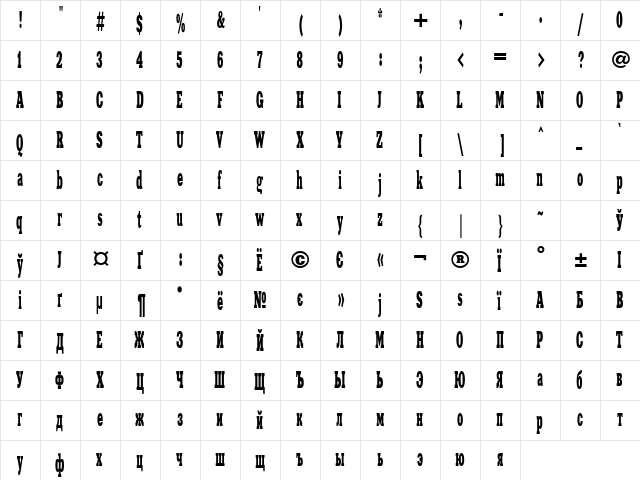
XeniaWesternC Regular Font Preview
XeniaWesternC Regular
Design Context for XeniaWesternC Typeface
XeniaWesternC taps into classic Western woodtype traditions — bold, characterful, and impossible to ignore.
Perfect for barbecue restaurants, country music branding, vintage poster design, and rustic packaging.
Font Pairing: Combine XeniaWesternC with a simple slab or neutral sans — period-accurate companions reinforce the vintage feel without competing for attention.
Pro Tip: Pair XeniaWesternC with aged textures or distressed backgrounds to amplify its vintage personality.